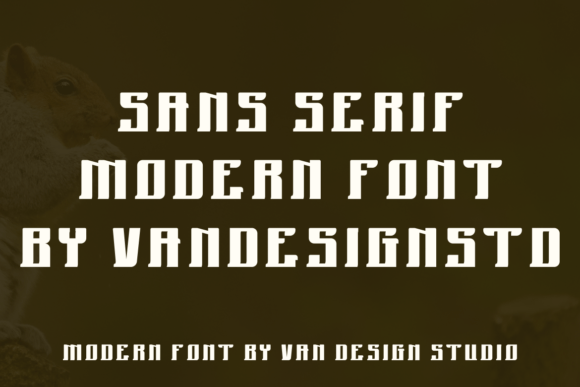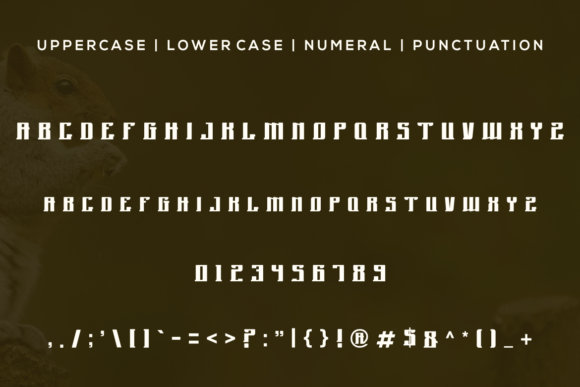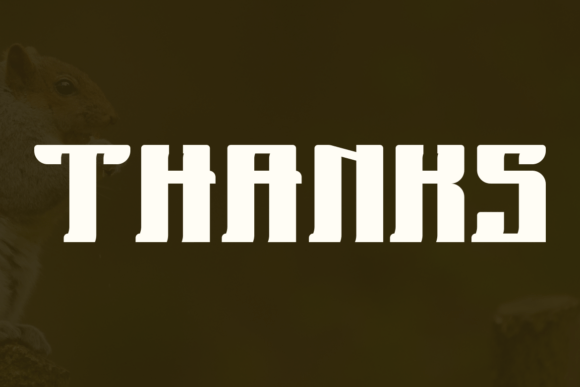
Introducing Guemoy Font: The Embodiment of Boldness and Strength
In the world of typography, fonts play a crucial role in conveying messages, evoking emotions, and creating lasting impressions. Among the numerous fonts available, Guemoy stands out as a bold and assertive display font that exudes masculinity and strength. With its sharp edges and powerful letterforms, Guemoy commands attention and makes a bold statement, perfect for impactful headlines, logos, and branding materials.
The Characteristics of Guemoy Font
Guemoy font is characterized by its sharp, rugged edges and sturdy letterforms that convey a sense of confidence and authority. The font’s bold and assertive nature makes it an ideal choice for designers and crafters looking to add a touch of masculinity to their designs. The font’s powerful appearance is perfect for making a lasting impression, whether it’s used for headlines, logos, or branding materials.
The Benefits of Using Guemoy Font
Guemoy font offers several benefits to designers and crafters, including:
- Attention-grabbing: Guemoy’s bold and assertive nature makes it perfect for grabbing attention and making a lasting impression.
- Confidence and authority: The font’s powerful appearance conveys confidence and authority, making it ideal for branding materials and logos.
- Masculinity: Guemoy’s rugged edges and sturdy letterforms evoke a sense of masculinity, making it perfect for designs that require a strong, bold look.
- Versatility: Guemoy can be used for a variety of design projects, including headlines, logos, branding materials, and more.
How to Use Guemoy Font Effectively
To use Guemoy font effectively, designers and crafters can follow these tips:
- Pair with contrasting fonts: Pair Guemoy with contrasting fonts to create visual interest and add depth to your design.
- Use for headlines and titles: Guemoy is perfect for headlines and titles, where its bold and assertive nature can make a lasting impression.
- Experiment with colors: Guemoy can be used with a variety of colors to create different effects and moods.
- Keep it simple: Don’t overcomplicate your design – Guemoy’s bold nature can speak for itself, so keep your design simple and clean.
Who Can Benefit from Guemoy Font?
Guemoy font is perfect for:
- Graphic designers: Guemoy can be used for a variety of graphic design projects, including logos, branding materials, and more.
- Crafters: Guemoy can be used for crafting projects, such as making signs, banners, and other materials.
- Marketers: Guemoy can be used for marketing materials, such as brochures, flyers, and more.
- Anyone looking for a bold font: Guemoy is perfect for anyone looking for a bold and assertive font to make a lasting impression.
| Font Name | Guemoy Font |
| Author | vandesignstd |
In conclusion, Guemoy font is a bold and assertive display font that exudes masculinity and strength. With its sharp edges and powerful letterforms, it commands attention and makes a bold statement. Perfect for impactful headlines, logos, and branding materials, Guemoy adds a touch of confidence and authority to any design. Whether you’re a designer, crafter, or marketer, Guemoy is a great choice for making a lasting impression. So, embrace the boldness and make a lasting impression with Guemoy.